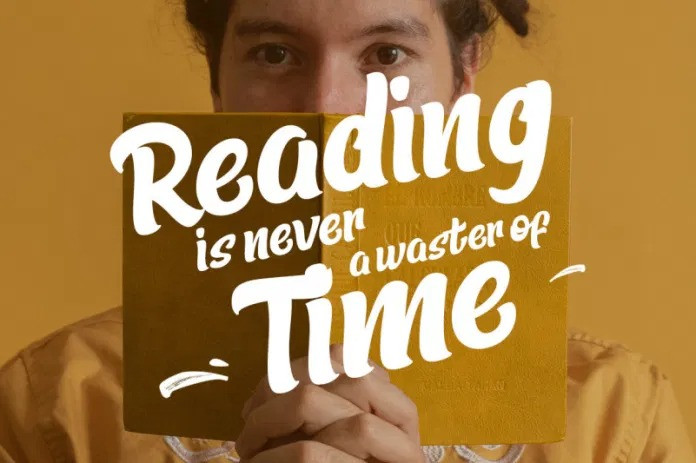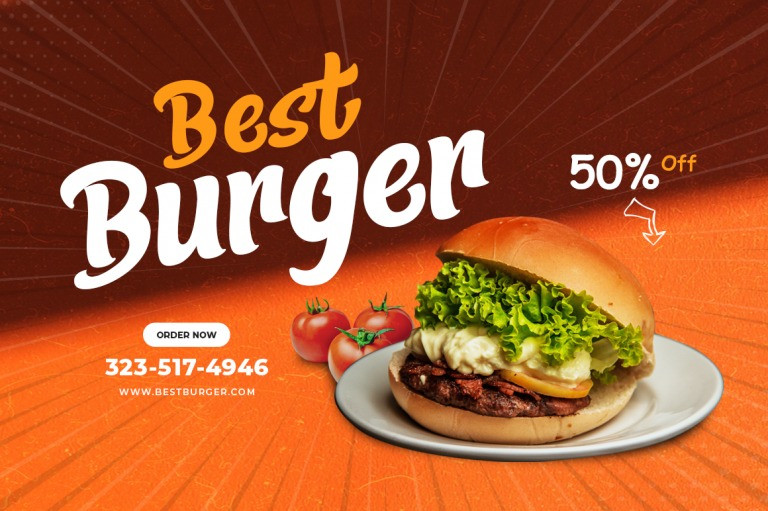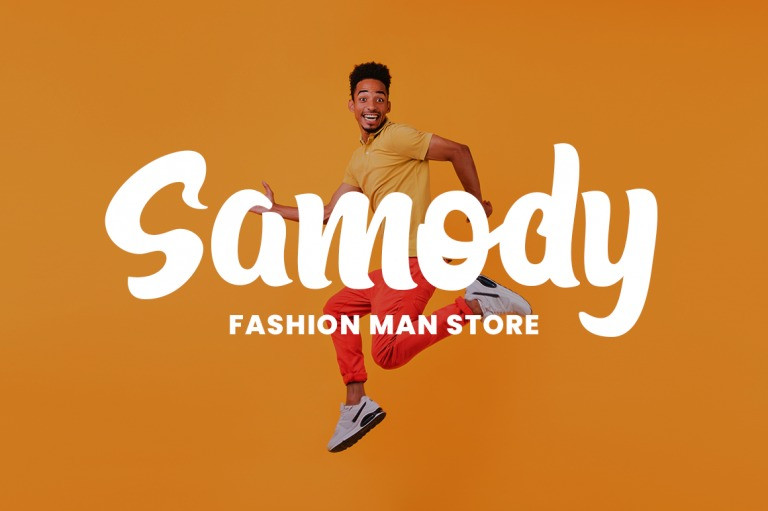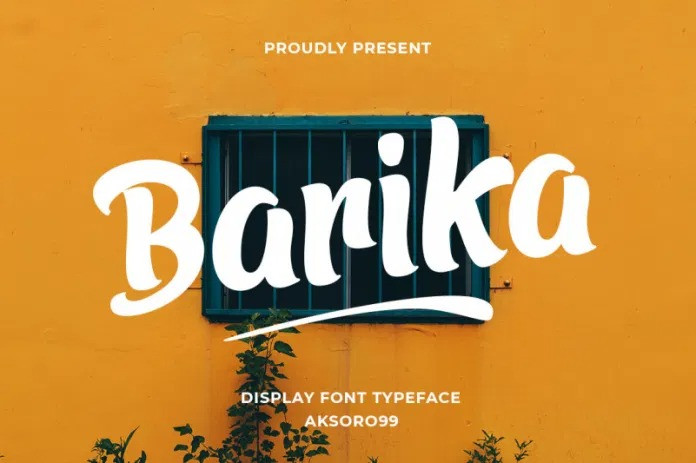
Barika Display Font
This is a simple, organic, and bold display font manufactured by Aksoro 99 Nugroho. It can be used for various purposes such as logos, invitations, headings, t-shirts, letterhead, signage, labels, news, posters, badges and so much more.